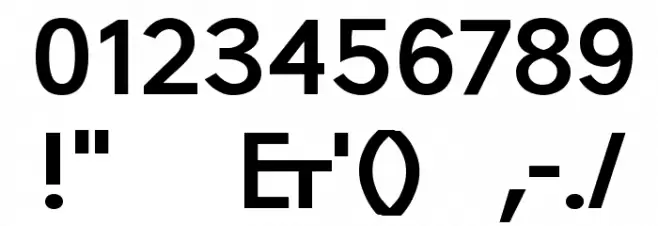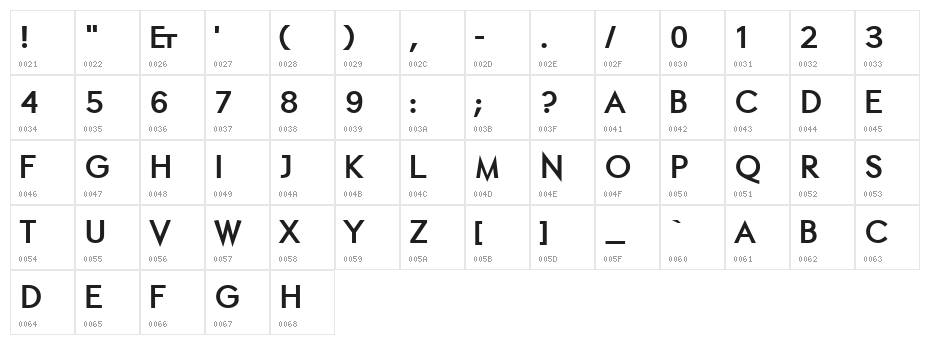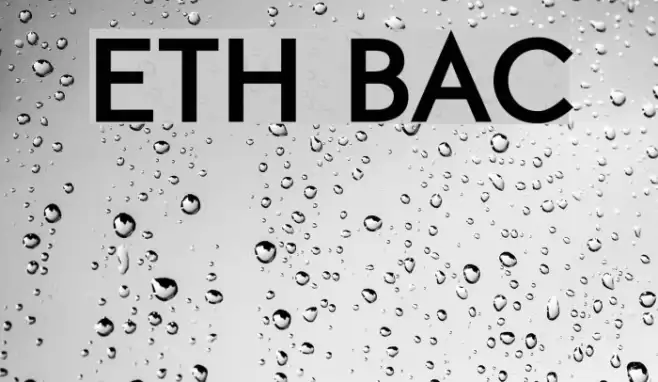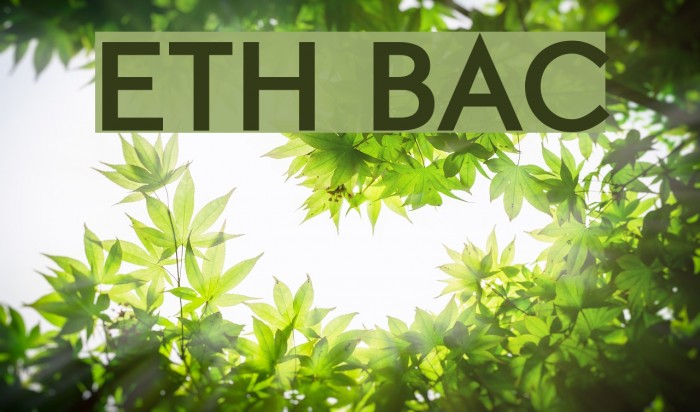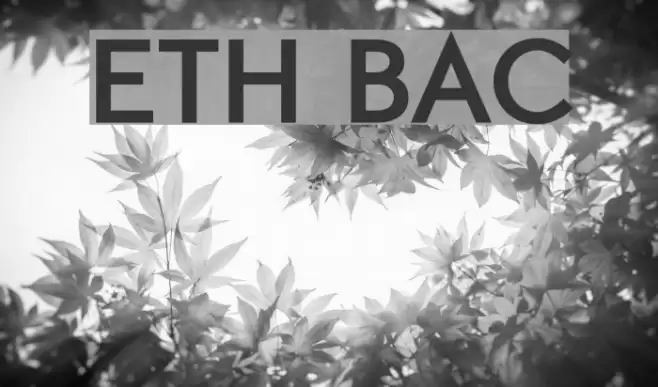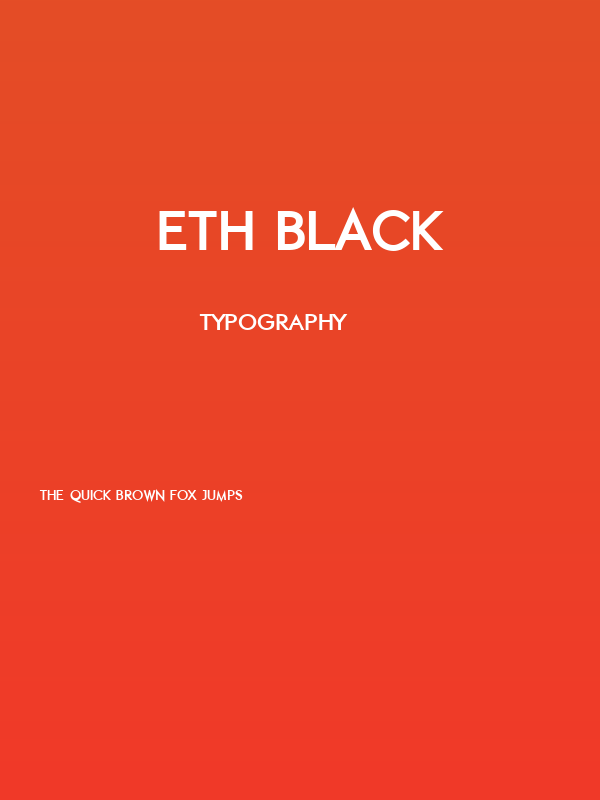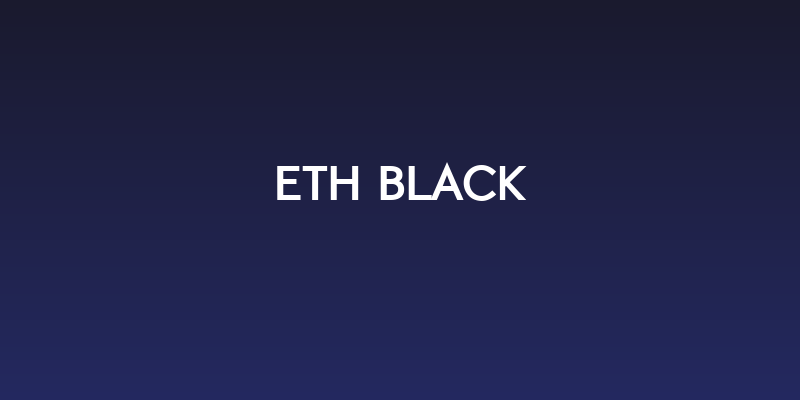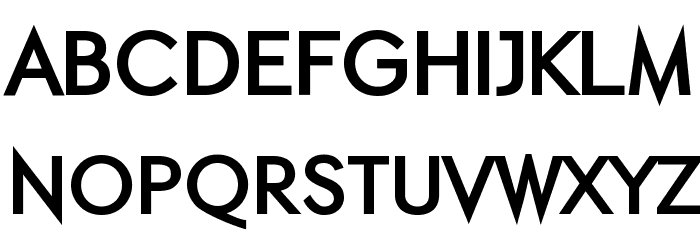
ETH Black Font
ETH Black Description
This font exhibits a bold and modern sans-serif style, characterized by clean lines and a strong presence. The uppercase and lowercase letters maintain a consistent weight, providing a uniform appearance. The numerals are clear and easily distinguishable, enhancing readability. Special characters are well-integrated, maintaining the font's cohesive look. The overall design is straightforward yet impactful, making it suitable for various applications where clarity and emphasis are required.